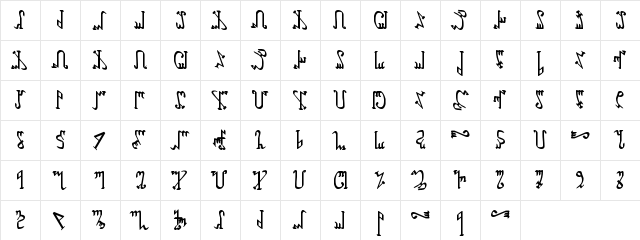
Wiccan Ways Regular
Design Context for Wiccan Ways Typeface
Wiccan Ways is a composed and adaptable typeface that performs quietly and consistently across a wide range of design contexts.